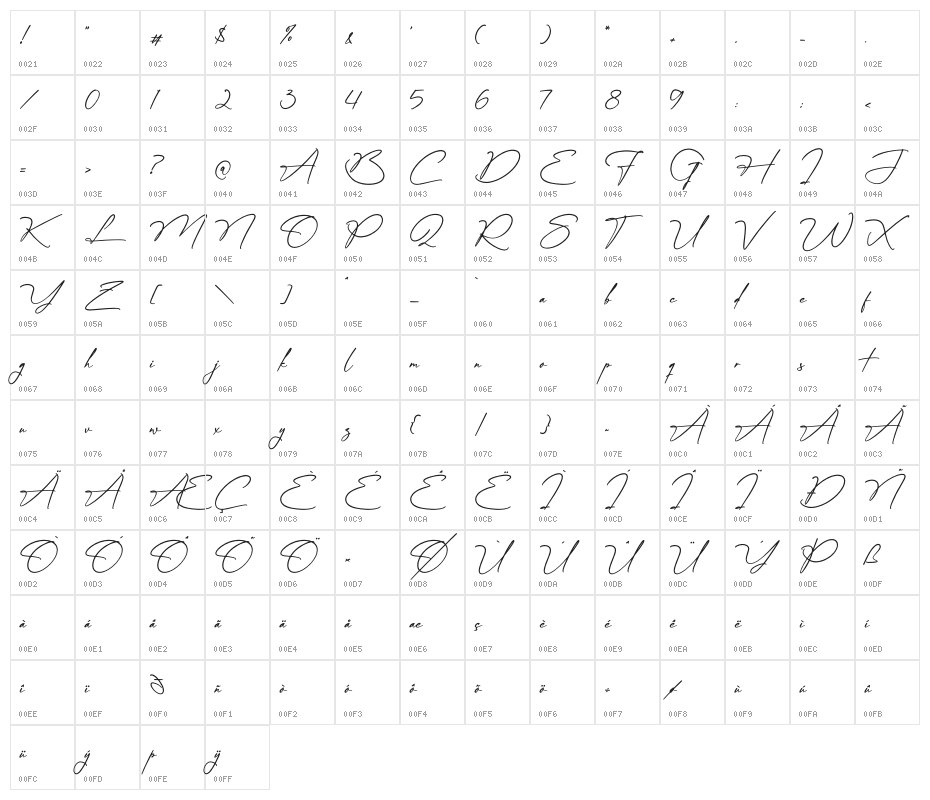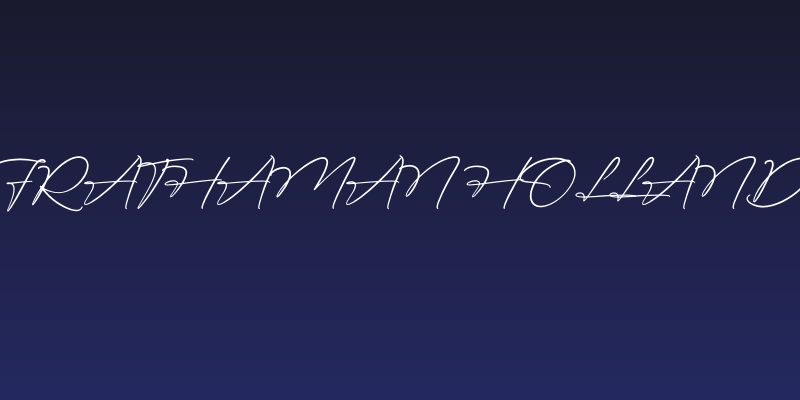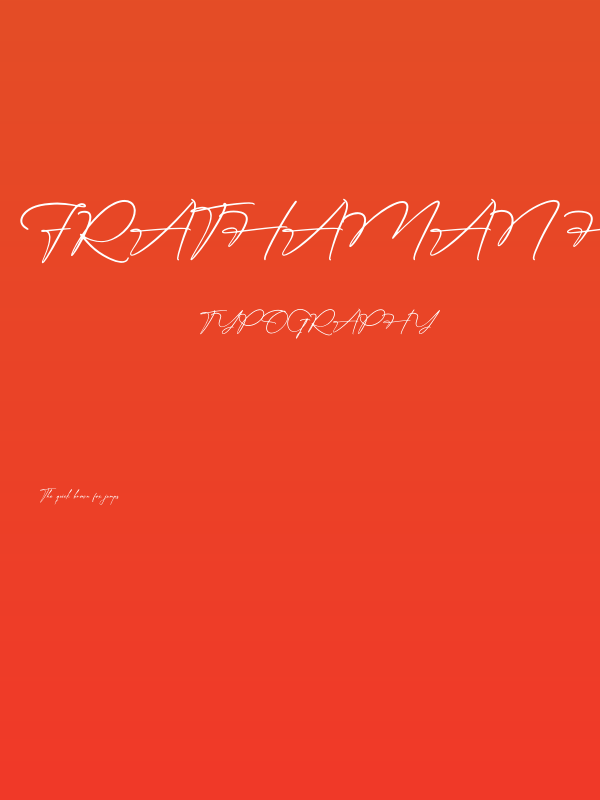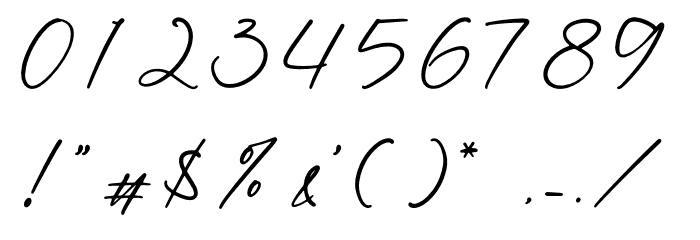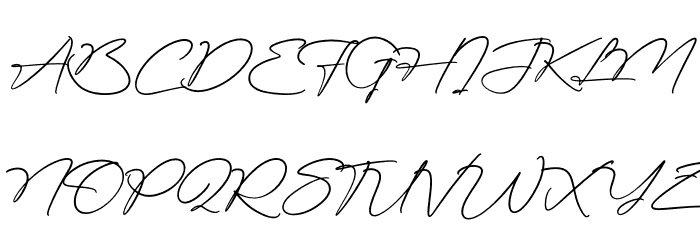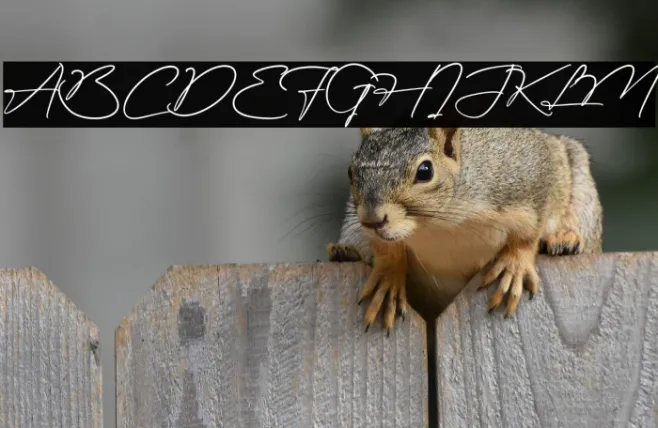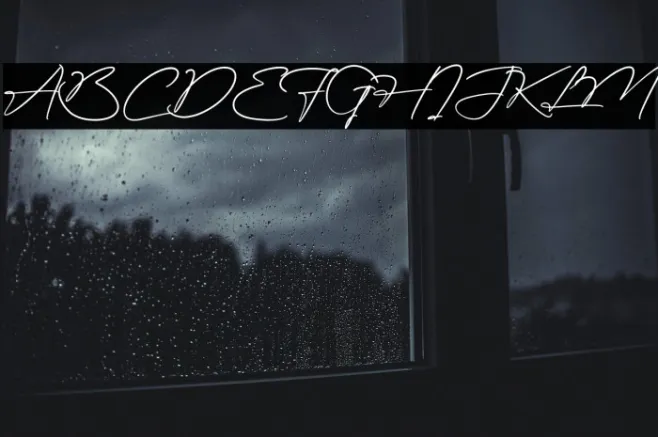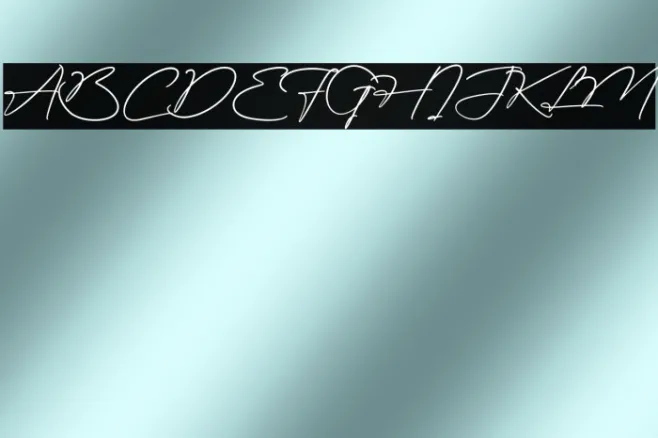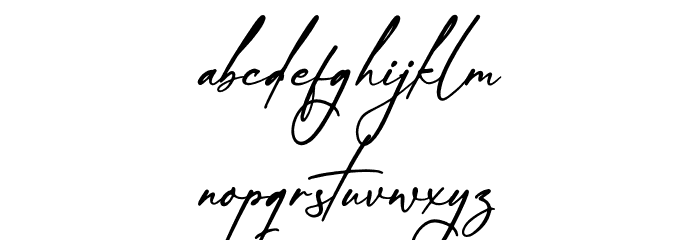
Frathaman Holland Font
Frathaman Holland Description
This font exudes a sophisticated and elegant script style, characterized by its fluid, cursive strokes and graceful curves. The uppercase letters are tall and slender, with a slight slant that adds a dynamic flow to the text. The lowercase letters maintain a consistent style, featuring smooth connections and a harmonious balance between thick and thin strokes. The numerals are clear and legible, complementing the overall aesthetic with their rounded forms. Special characters are thoughtfully designed, maintaining the font's cohesive and stylish appearance. This font is perfect for projects that require a touch of elegance and refinement.